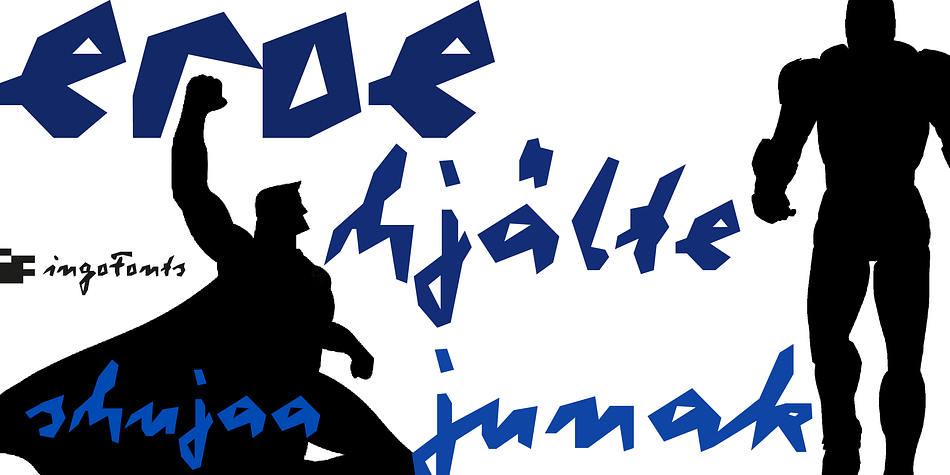
Hero
Designed by Ingo Zimmerman, Hero is a script font published by ingoFonts.
A type of “handwriting” discovered by chance, extremely abstract
On April 8, 1948 a certain Walter Plaga wrote a crude poem about a hero on a commemorative plaque. The very poor reproduction of the handwritten original, etched into a metal sheet, produced extremely abstract forms so that — even if unintentional — a script completely void of bowls was created.
That which originally was the normal clumsy handwriting of a layman thus transformed into a pseudo-modern deconstructive typeface, which in the 21st century appears contemporary. The capital letters especially reflect the original: in part they show forms labeled incorrectly ”old German“ handwriting, which is actually Latin, in the letters A D G I J K L S V W X Z , whereas C H N O P R appear very modern.
Truly a form of handwriting: without joining the letters, especially between the lower case characters, a silhouette effect is formed. To a great extent Hero is impressive due to its driven-to-the-limit abstraction and to a lesser extent by retaining an antiquated and nearly illegible effect.